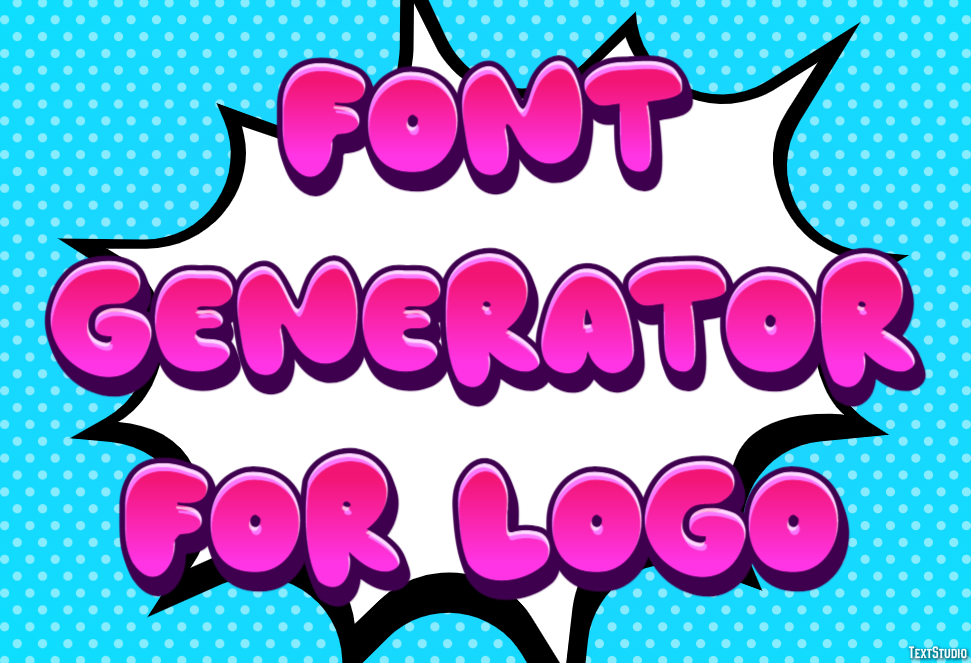
Font Generator For Logo Text Effect
Font effect designs Font Generator For Logo.
Create captivating comic-style speech bubbles and wow your audience with our innovative font style text effect generator. Transform ordinary text into dynamic and eye-catching designs, perfect for comics and any creative project. Unleash your imagination and make your words pop with our cutting-edge font generator.